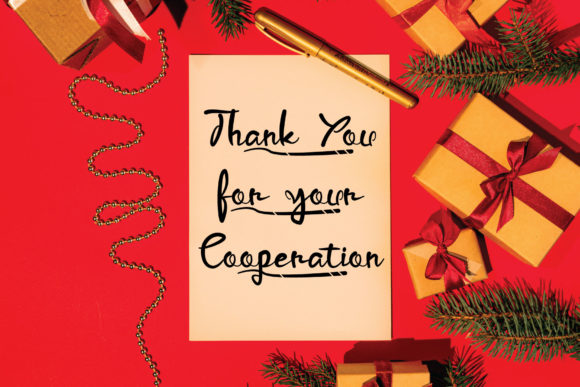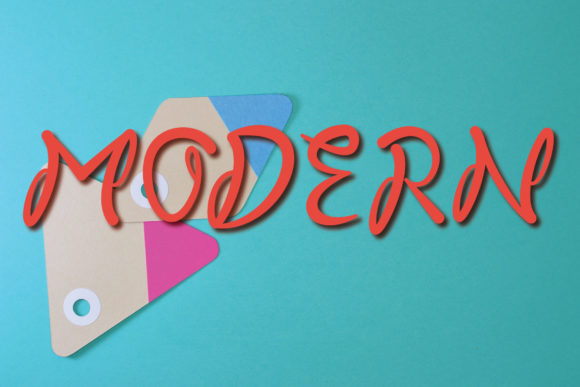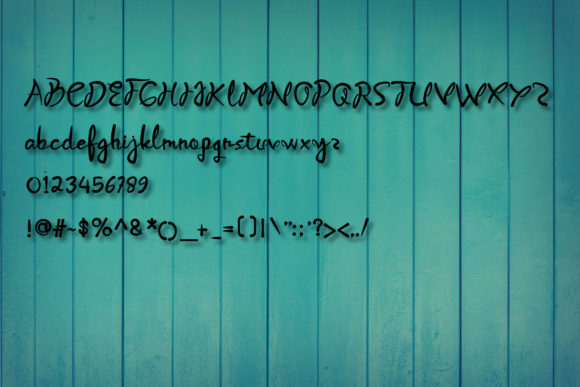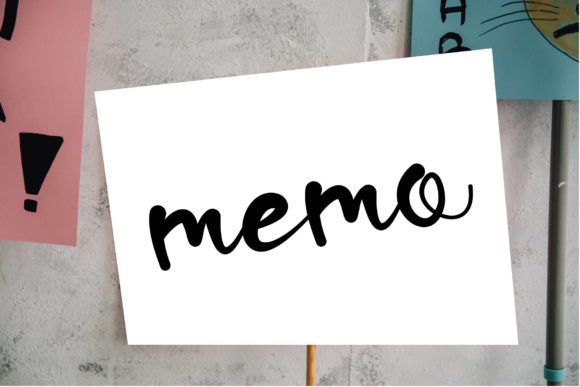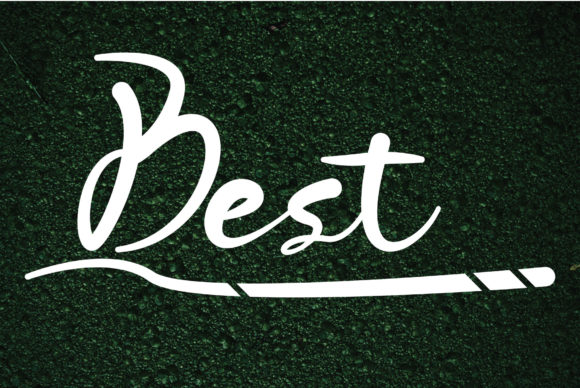
The Best Font for Your Design Needs: A Comprehensive Guide to Best Font
When it comes to choosing the perfect font for your design project, it can be overwhelming with the numerous options available. However, if you’re looking for a font that exudes a clean, flowing, and smooth vibe, then Best Font is the perfect choice. In this article, we’ll dive into the world of Best Font, exploring its features, benefits, and uses, to help you make an informed decision for your design needs.
What is Best Font?
Best Font is a sweet handwritten font that has gained popularity among designers and crafters alike. Its unique characteristics make it an excellent addition to any design project, from digital media to print materials. Best Font boasts a clean, flowing, and smooth vibe that instantly elevates the visual appeal of your design.
Key Features of Best Font
- Handwritten style: Best Font has a distinct handwritten style that adds a personal touch to your design.
- Clean and smooth: The font features clean lines and smooth curves, making it perfect for designs that require a touch of elegance.
- Flowing script: Best Font’s script flows effortlessly, creating a sense of movement and fluidity in your design.
- Versatile: This font is suitable for a wide range of design projects, from branding and advertising to packaging and stationery.
Benefits of Using Best Font
So, why choose Best Font for your design project? Here are some benefits that make it an excellent choice:
- Emotional connection: Best Font’s handwritten style creates an emotional connection with your audience, making your design more relatable and engaging.
- Unique identity: The font’s distinctiveness helps your design stand out from the crowd, giving you a unique identity in a crowded market.
- Easy to read: Best Font’s clean and smooth lines ensure that your text is easy to read, even at smaller font sizes.
- Customizable: You can customize Best Font to fit your brand’s style, making it a versatile addition to your design arsenal.
Best Font in Action: Design Ideas and Inspiration
Now that we’ve explored the features and benefits of Best Font, let’s take a look at some design ideas and inspiration to get you started:
- Branding and logos: Use Best Font to create a unique and memorable logo that reflects your brand’s personality.
- Wedding and event invitations: Add a touch of elegance and sophistication to your wedding or event invitations with Best Font.
- Social media graphics: Use Best Font to create engaging social media graphics that stand out in crowded feeds.
- Packaging design: Elevate your packaging design with Best Font, making your product stand out on store shelves.
Tips for Using Best Font Effectively
To get the most out of Best Font, here are some tips to keep in mind:
- Pair with complementary fonts: Combine Best Font with complementary fonts to create visual interest and hierarchy in your design.
- Experiment with colors: Try out different color combinations to find the perfect match for your brand and design.
- Pay attention to spacing: Ensure that you leave sufficient spacing between lines and elements to maintain a clean and smooth design.
In conclusion, Best Font is an exceptional handwritten font that can elevate your design project with its clean, flowing, and smooth vibe. With its versatility, emotional connection, and unique identity, Best Font is an excellent choice for designers and crafters alike. By following the tips and inspiration outlined in this article, you’ll be well on your way to creating stunning designs that showcase the best of Best Font.